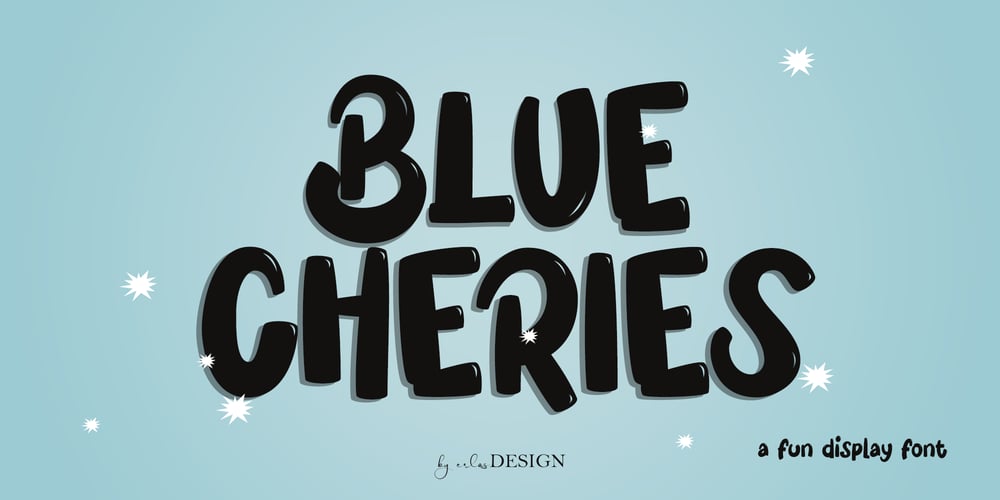
Blue Cheries
Blue Cheries font
Blue Cheries Font Family was designed by Erlangga Suherman and published by ErlosDesign. Blue Cheries contains 2 styles and family package options. Blue Cheries is a fun and bubbly display font. Whether you are using it for cartoon-related designs, children’s games, quotes, titles, brand names, book covers, posters, or just any creation that requires a touch of beauty, this font is a great choice.Thank you